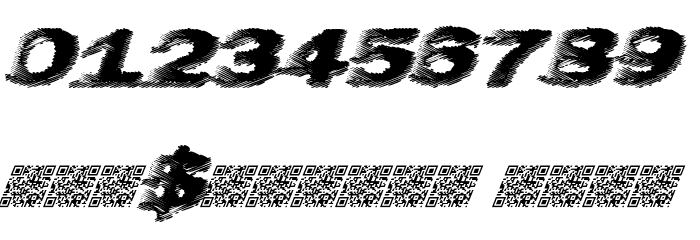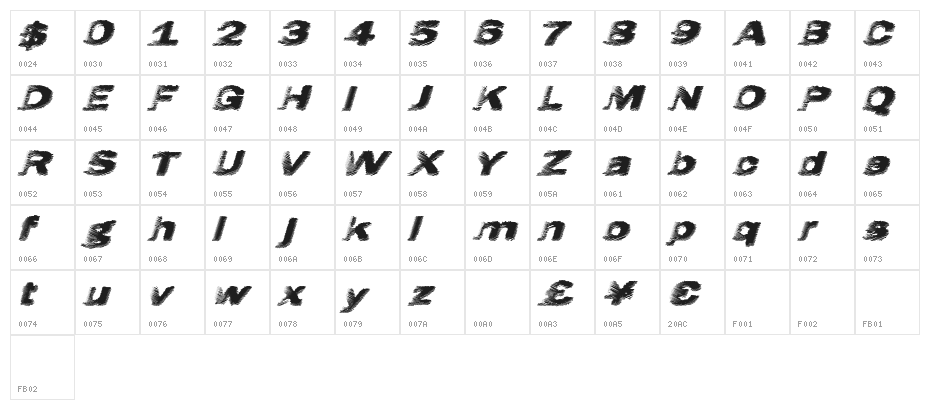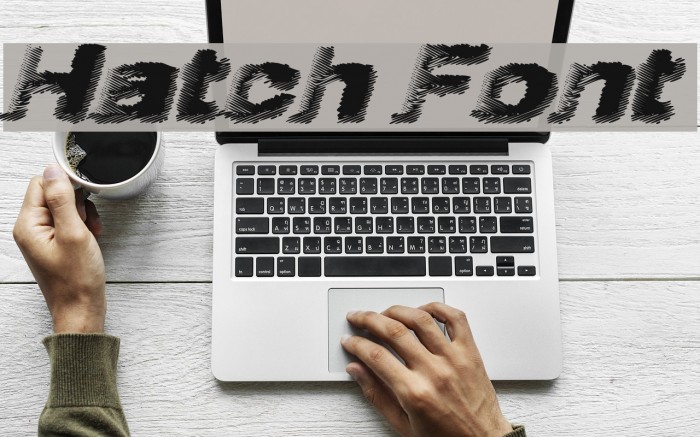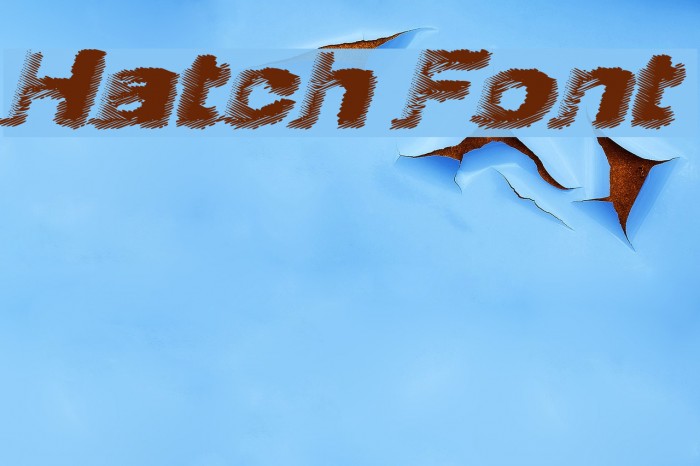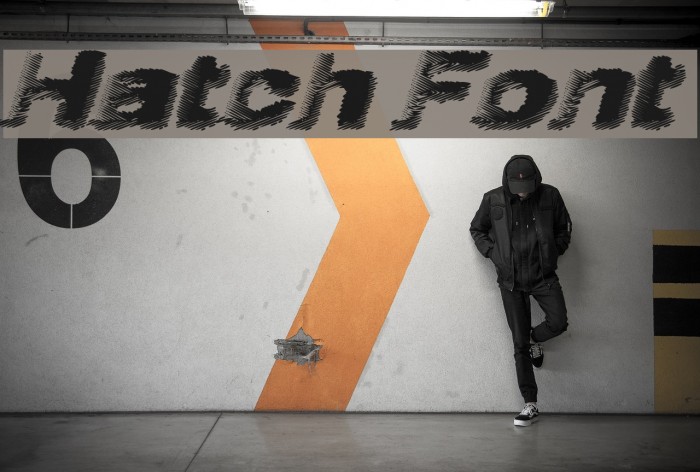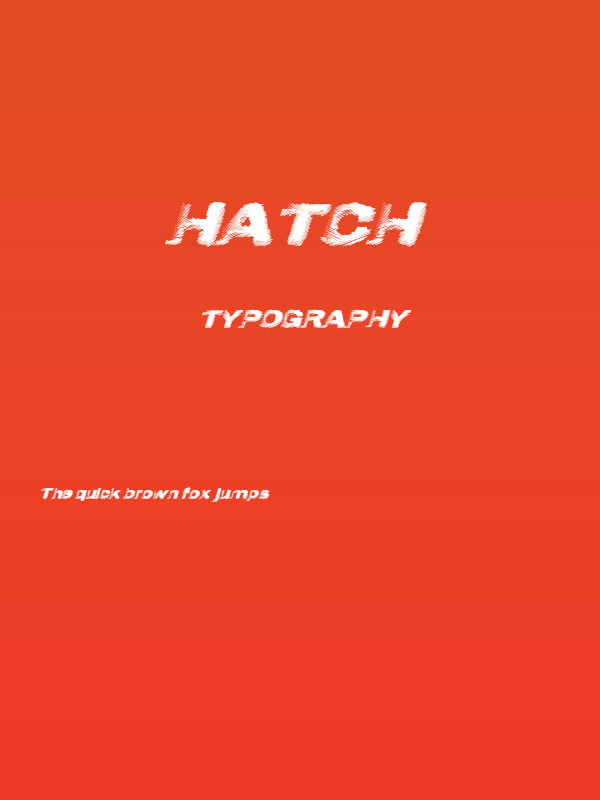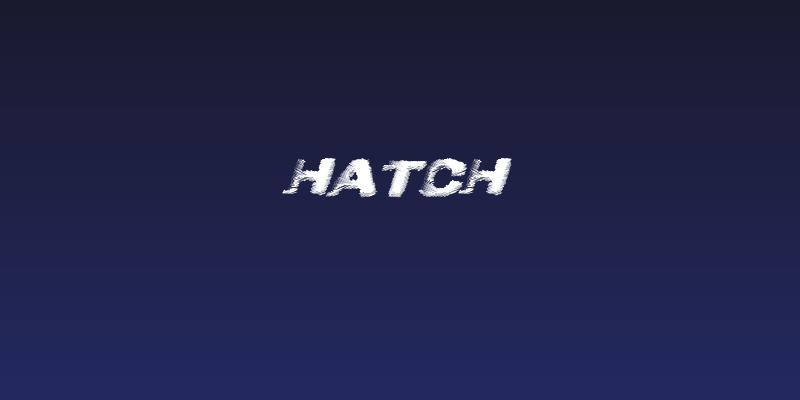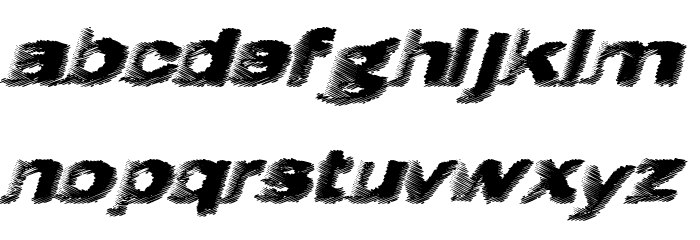
Hatch Font
Hatch Description
This font features a bold, dynamic style with a distinct hatch pattern that gives it a textured appearance. The characters are slanted, suggesting a sense of movement and energy. The uppercase and lowercase letters maintain a consistent style, with the hatch lines creating a sense of depth and dimension. The numbers and special characters follow the same design, ensuring uniformity across all elements. This font's unique texture makes it stand out, offering a visually engaging experience.
| Proposed Projects | Ideal for projects that require a bold statement, such as posters, album covers, or branding materials that aim to capture attention with a unique, textured look. |